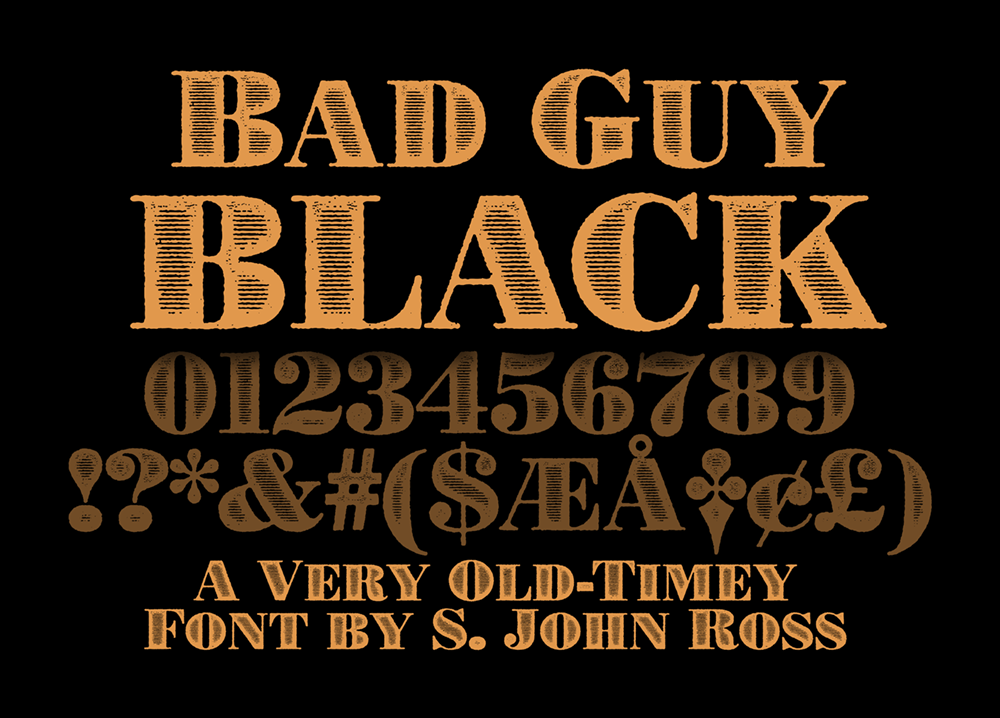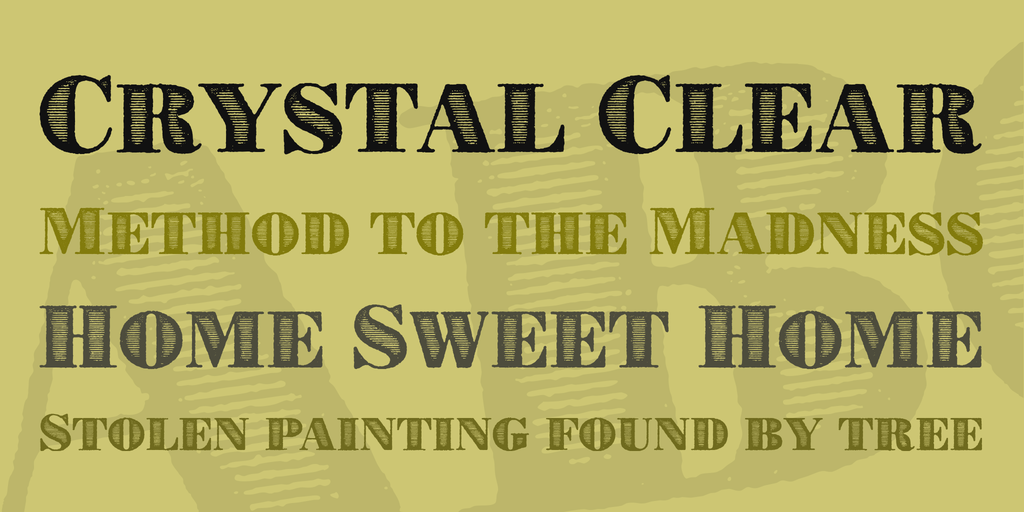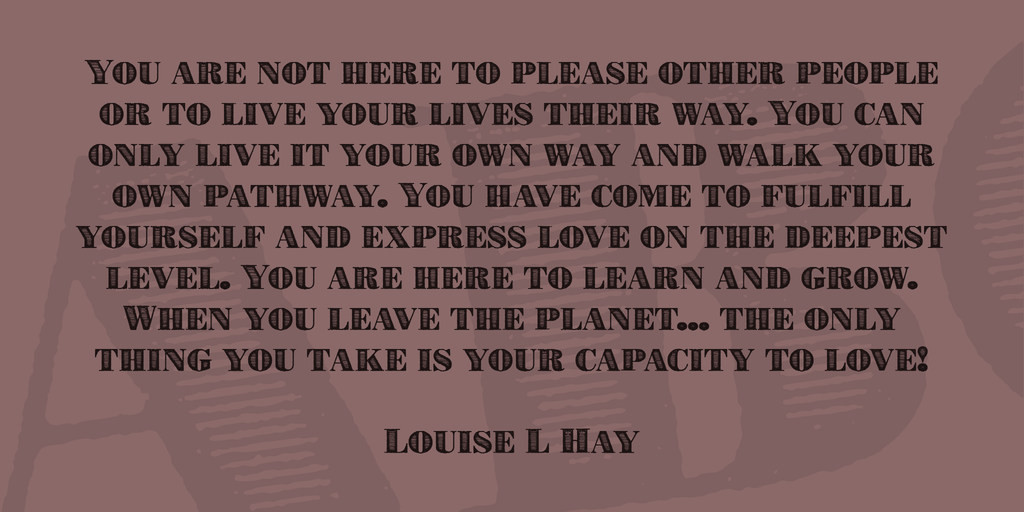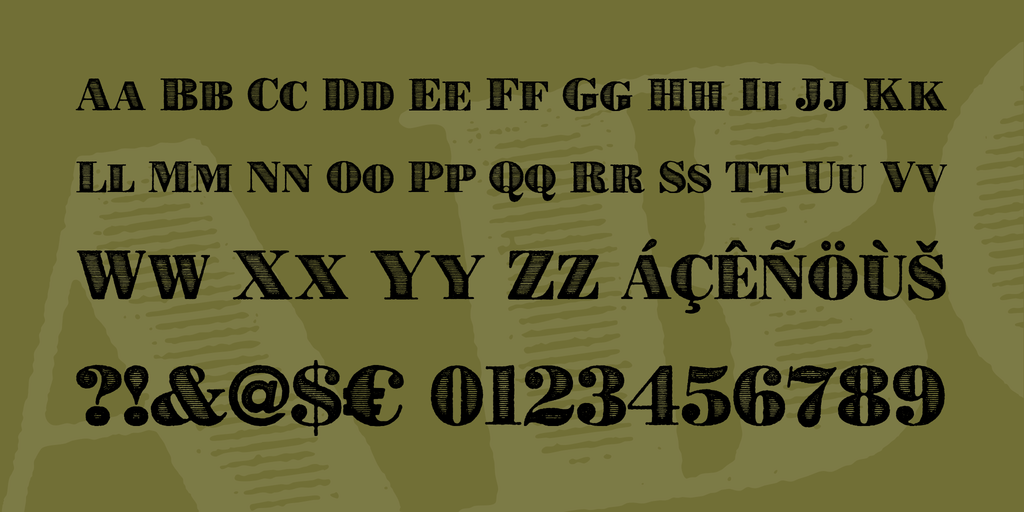
Bad Guy Black Font
I’ve made a lot of stress fonts, but BAD GUY BLACK is about more than stress, it’s about age. This came after a bout of Fly From Evil research, staring at quite a lot of nearly-a-century old documents, and trying to isolate what, graphically, made a font feel not only stressed, but actually old. I think it came out pretty well; hope you like it!